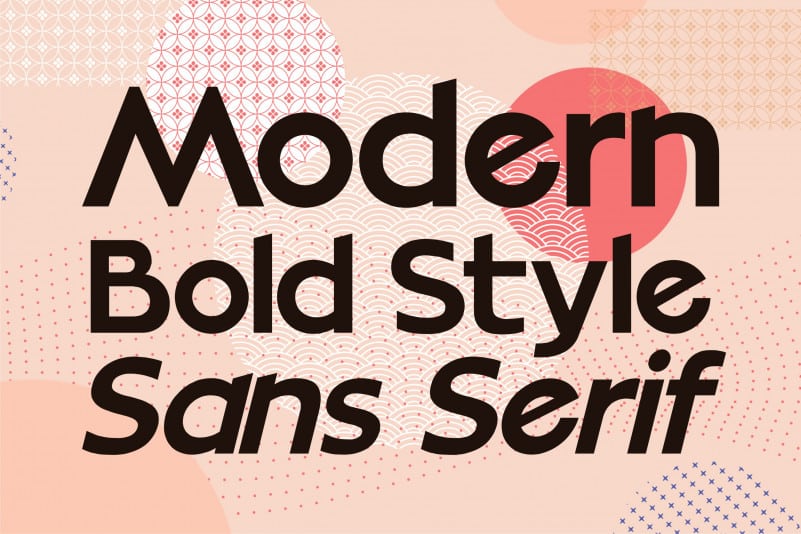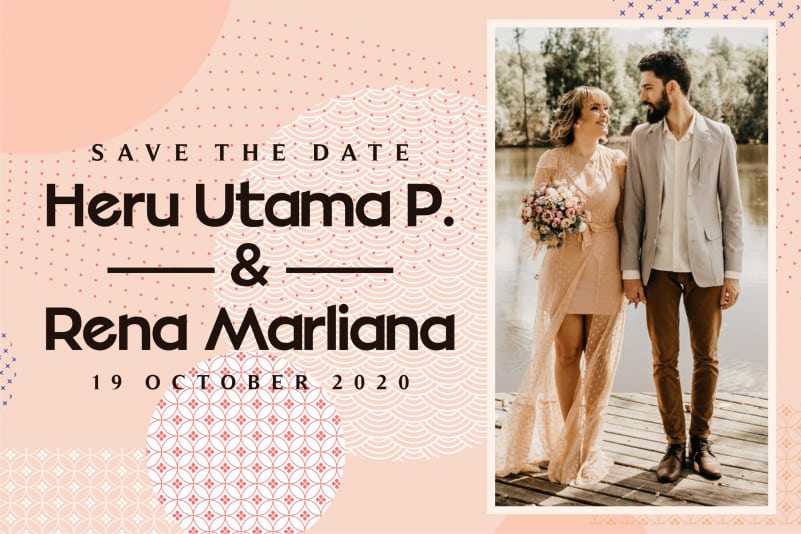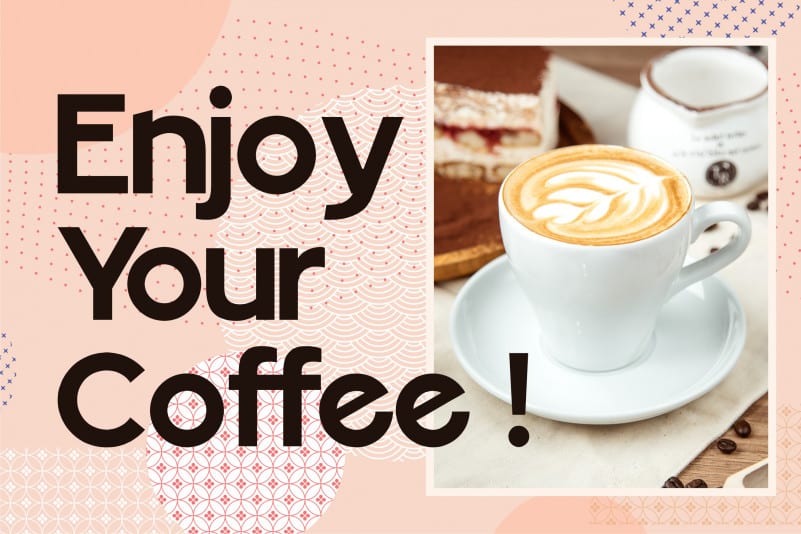
Mellinda Lopez Sans Serif Font is an elegant and modern sans serif font. It is suitable for a wide variety of projects such as: logos, branding, product packaging, quotes, posters, shopping bags, t-shirts, book covers, invitation cards, greeting cards, label, photography, watermark, special events, and any other project that requires a beautiful touch.